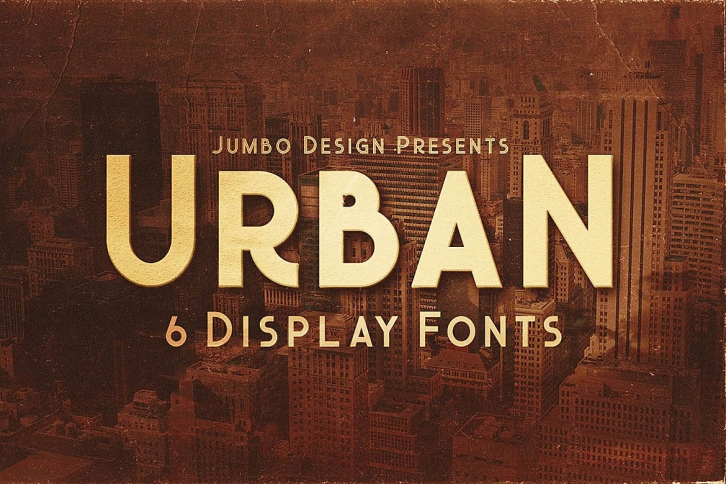
Urban is a gorgeous font that was realeased on October 8, 2017. The font can be used in many style contexts and design environments. Perfect for invitations, magazines, websites, logos, and more! It was designed by Cruzine Design and the file size is 16.1 MB. Thanks for checking out this font!